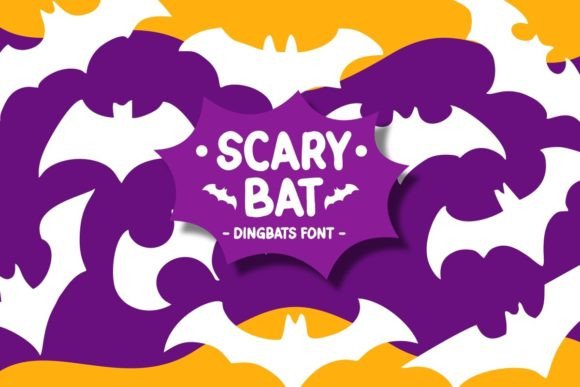
Unleash the haunting beauty of Halloween with our 'Scary Bat' Dingbat Font – a bewitching collection of bat-themed icons that will cast a spell on your designs! This font is not just a font; it's a portal to a world of spooky charm and eerie elegance. Each icon is meticulously crafted to capture the essence of Halloween, allowing you to weave a web of enchantment into your projects.
With 'Scary Bat,' you'll have the power to:
- Transform ordinary text into a chorus of bats, creating a haunting visual symphony that will send shivers down the spines of your audience.
- Elevate your Halloween invitations, greeting cards, and social media posts with an aura of mystery and intrigue.
- Craft spellbinding logos, headers, and website designs that evoke the magic of the Halloween night.
- Unleash your creativity with endless possibilities, from spooky flyers and posters to spine-chilling book covers and merchandise designs.
The 'Scary Bat' Dingbat Font is a must-have for anyone looking to add a touch of Halloween magic to their designs. Its versatility extends beyond personal projects – use it for commercial purposes and let your imagination run wild!
Don't miss out on this opportunity to enchant your audience with a font that speaks to the heart of Halloween. Embrace the darkness, embrace the 'Scary Bat,' and let your designs take flight!